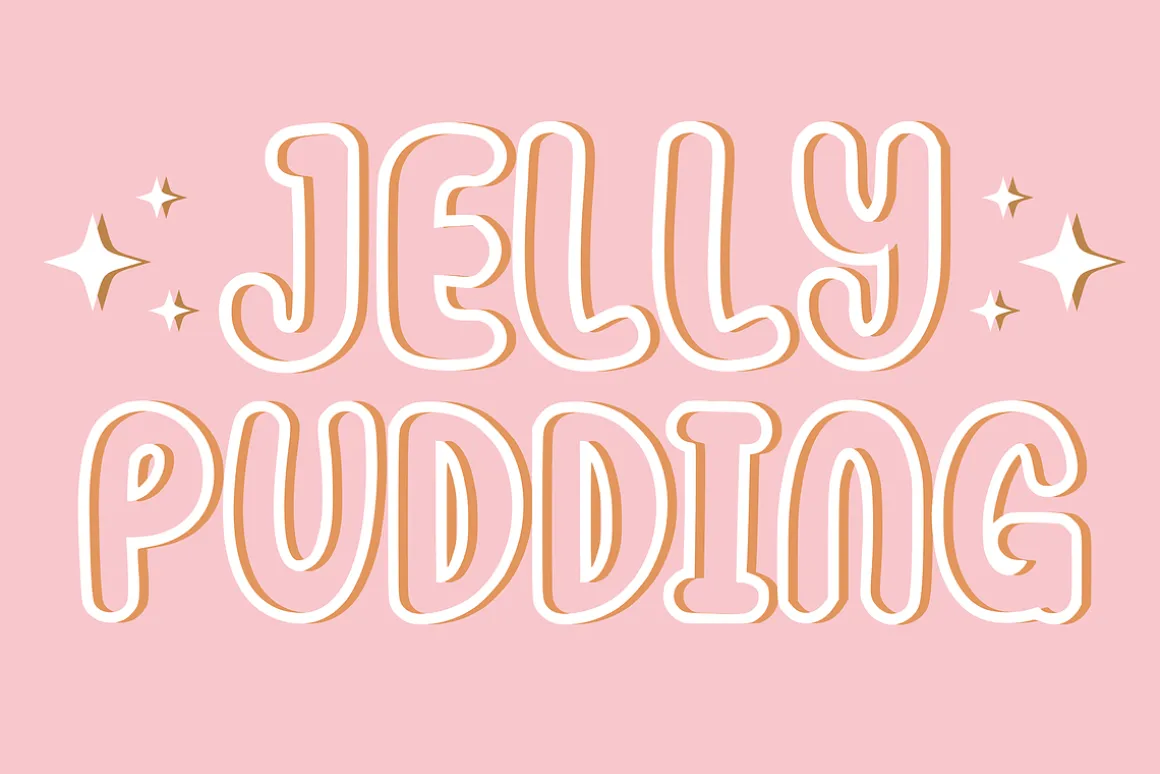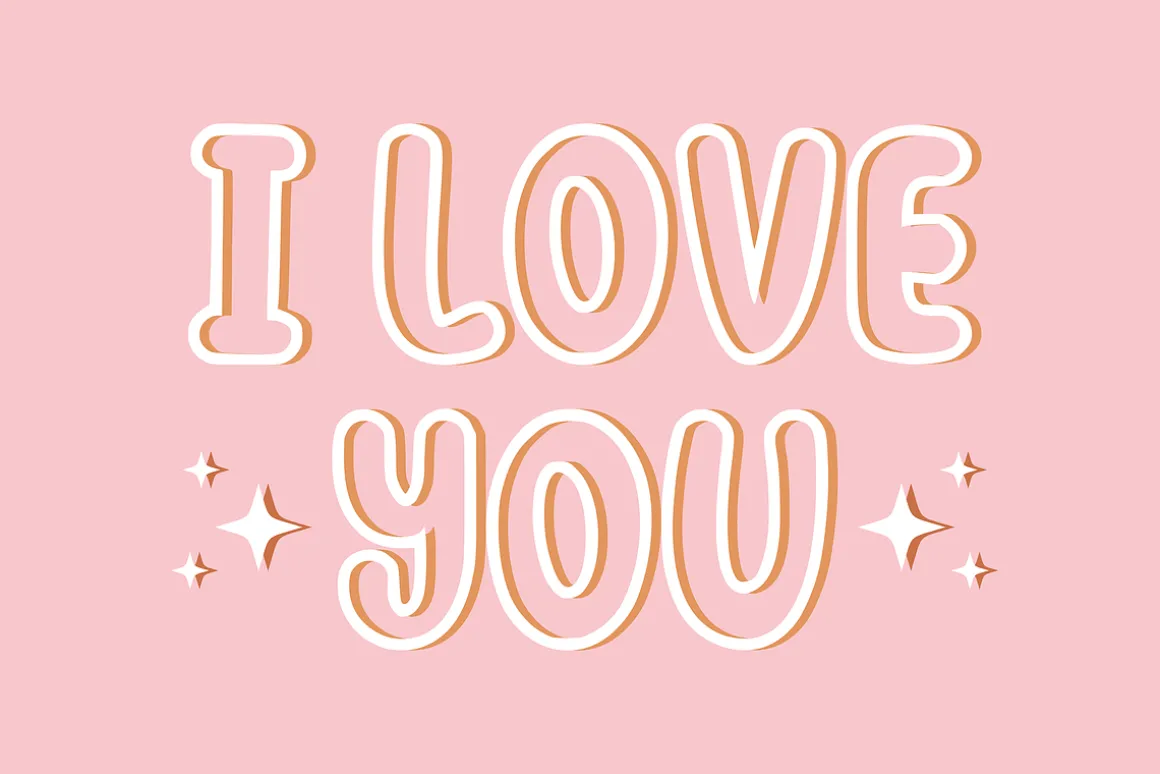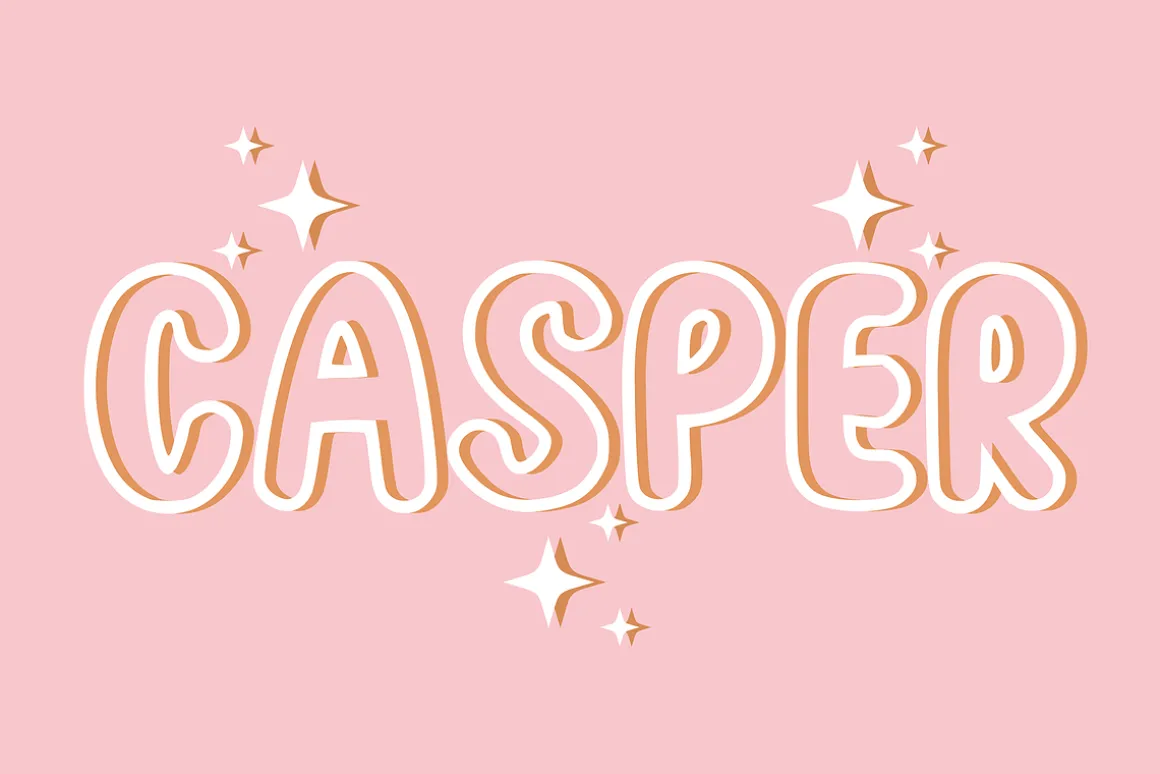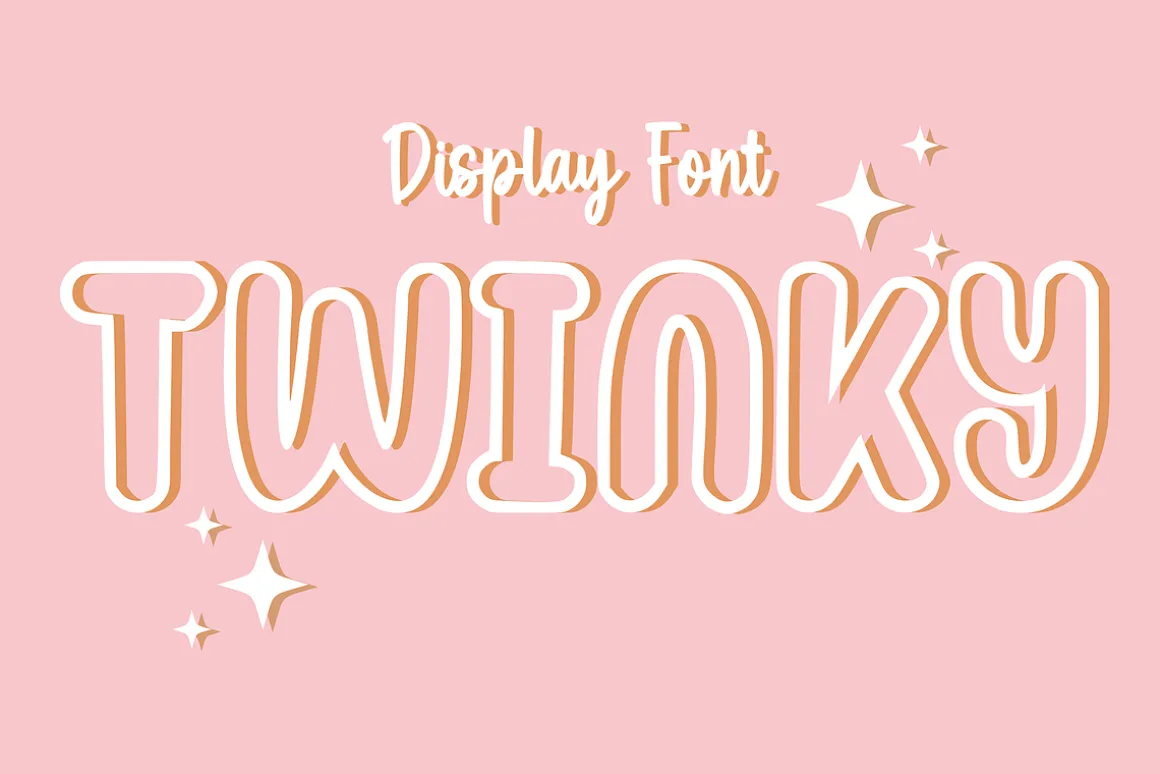
✨ Twinky – Sweet & Bubbly Outline Display Font 🍬Add a touch of magic and sweetness to your designs! 🌟
Twinky is a delightful and bubbly outline display font designed to bring a cheerful, modern-retro vibe to your creative projects. With its soft, rounded edges and clean hollow center, it’s the “paws-itively” perfect choice for designers who love a kawaii, trendy, and playful aesthetic.
Whether you’re crafting viral social media graphics, adorable stickers, or standout branding, Twinky adds a layer of fun that’s impossible to miss!
Design Style: Clean outline, bold weight, and perfectly legible.